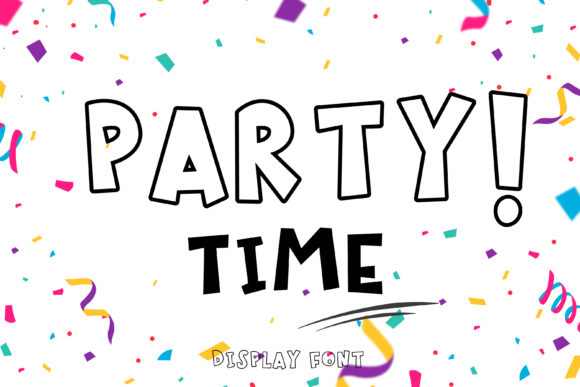
Party Time Font: Elevate Your Designs with a Bold and Relaxed Display Font
In the world of typography, fonts play a crucial role in conveying the tone and personality of a design. Whether you’re working on a branding project, creating social media content, or designing a website, the right font can make all the difference. If you’re looking for a font that exudes a friendly and relaxed vibe, look no further than the Party Time Font. This bold and relaxed display font is perfect for adding a touch of personality to your designs and making them stand out from the crowd.
What Makes Party Time Font So Special?
Party Time Font is a bold and relaxed display font that boasts a friendly feel, making it incredibly versatile and suitable for a wide range of contexts. Here are some of its key features:
- Bold and Relaxed: The font’s bold weight and relaxed style make it perfect for creating eye-catching designs that still feel approachable and laid-back.
- Friendly Feel: The font’s friendly feel makes it ideal for use in designs where you want to create a warm and inviting atmosphere.
- Versatile: Party Time Font is incredibly versatile and can be used in a wide range of contexts, from branding and advertising to social media and web design.
10 Creative Ways to Use Party Time Font
Party Time Font is a versatile font that can be used in a variety of creative ways. Here are 10 ideas to get you started:
- Branding: Use Party Time Font as a logo font or in your brand’s marketing materials to create a bold and recognizable brand identity.
- Social Media Graphics: Add a touch of personality to your social media graphics with Party Time Font, perfect for creating eye-catching posts and stories.
- Web Design: Use Party Time Font as a display font on your website to create a bold and memorable header or title.
- Advertising: Party Time Font is perfect for use in advertising, whether it’s for print, digital, or outdoor ads.
- Event Branding: Use Party Time Font to create bold and eye-catching event branding, such as posters, flyers, and banners.
- Packaging: Add a touch of personality to your product packaging with Party Time Font, perfect for creating eye-catching labels and packaging materials.
- Merchandise: Use Party Time Font to create bold and recognizable merchandise, such as t-shirts, hats, and stickers.
- Infographics: Party Time Font is perfect for use in infographics, where its bold and relaxed style can help to create visually appealing and easy-to-read graphics.
- Presentations: Use Party Time Font to add a touch of personality to your presentations, making them more engaging and memorable.
- Signage: Party Time Font is perfect for use in signage, whether it’s for indoor or outdoor use, and can help to create bold and eye-catching signs.
Typography Tips for Using Party Time Font
When using Party Time Font, here are some typography tips to keep in mind:
- Use it as a display font: Party Time Font is perfect for use as a display font, where its bold and relaxed style can help to create eye-catching headings and titles.
- Pair it with a simple font: When pairing Party Time Font with another font, choose a simple font that won’t compete with the bold and relaxed style of Party Time Font.
- Experiment with colors: Party Time Font looks great in a variety of colors, so don’t be afraid to experiment and find the perfect color to match your brand or design.
- Use it sparingly: While Party Time Font is a versatile font, it’s best used sparingly to create emphasis and add personality to your designs.
In conclusion, Party Time Font is a bold and relaxed display font that’s perfect for adding a touch of personality to your designs. Its friendly feel and versatile style make it suitable for a wide range of contexts, from branding and advertising to social media and web design. With its bold and relaxed style, Party Time Font is sure to make your designs stand out from the crowd.